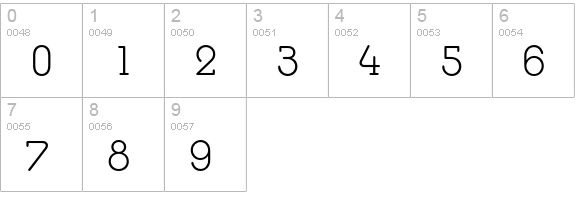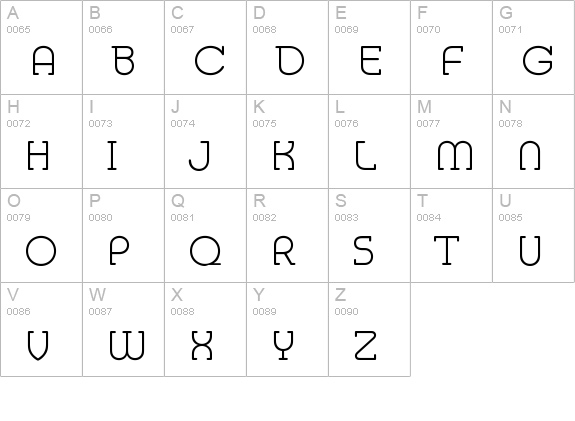
Introducing Media-Xlight font, a sleek and modern typeface perfect for a wide range of design projects. With its clean lines and elegant appearance, Media-Xlight exudes a sense of sophistication and professionalism. This versatile font is ideal for use in both digital and print media, making it a valuable asset for designers and creatives alike. What sets Media-Xlight font apart is that it is available for free download at FontsMarket.com. This means that you can easily access this high-quality font without any cost, allowing you to enhance your projects without breaking the bank. Whether you are working on branding, advertising, web design, or any other creative endeavor, Media-Xlight font is sure to elevate your work with its modern and stylish aesthetic. Don't miss out on the opportunity to add Media-Xlight font to your font library today. Download it for free at FontsMarket.com and start creating stunning designs that stand out from the crowd.